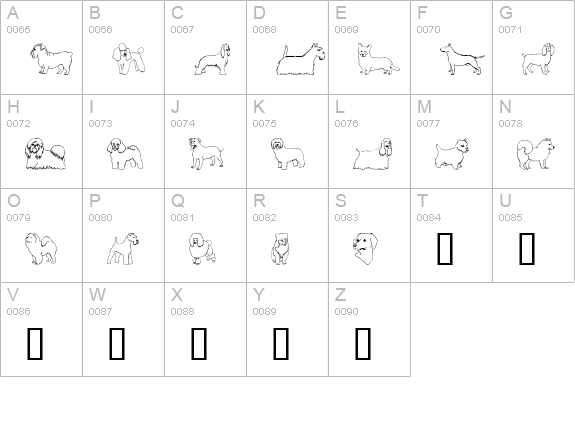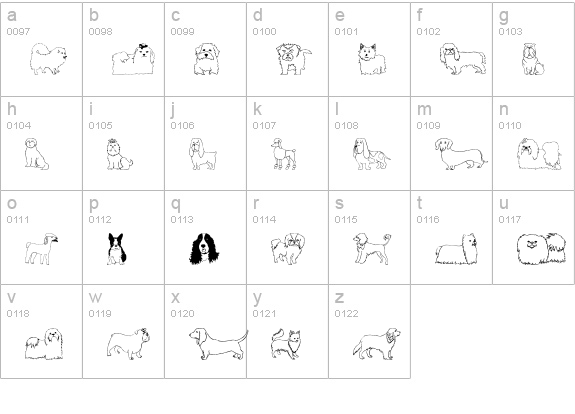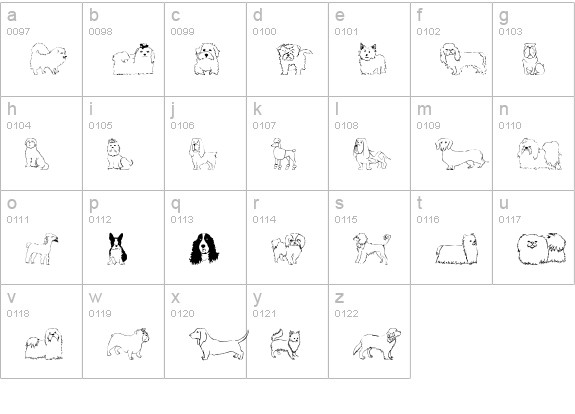
Puppins Font Details
Introducing Puppins font, a charming and versatile typeface that will add a touch of whimsy to any project. This fun and playful font features unique characters and a friendly, handwritten style that is sure to make your designs stand out. Puppins font is perfect for a variety of projects, from invitations and posters to branding and social media graphics. Best of all, Puppins font is completely free to download at FontsMarket.com. So, whether you're a seasoned designer looking to add a fresh font to your collection or a beginner searching for the perfect typeface for your next project, Puppins font is a fantastic choice. Don't miss out on this delightful font that will bring joy and personality to your designs. Download Puppins font today and let your creativity soar!